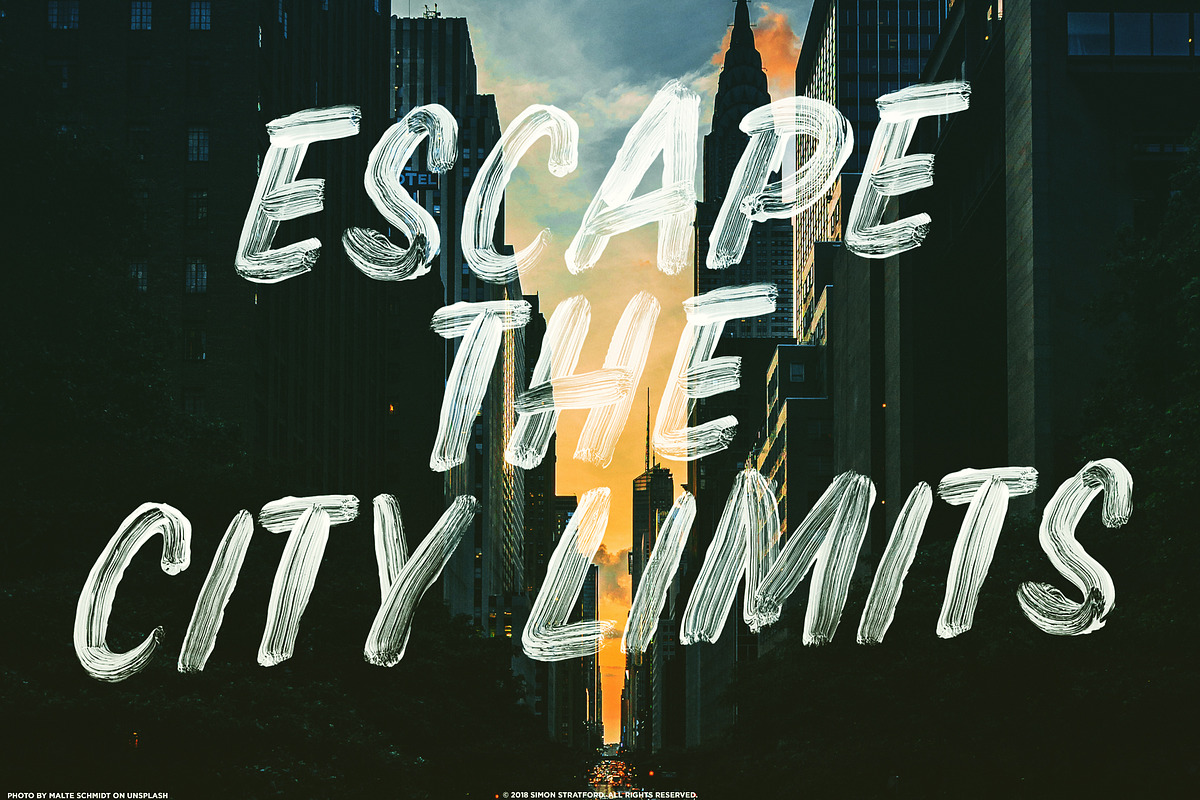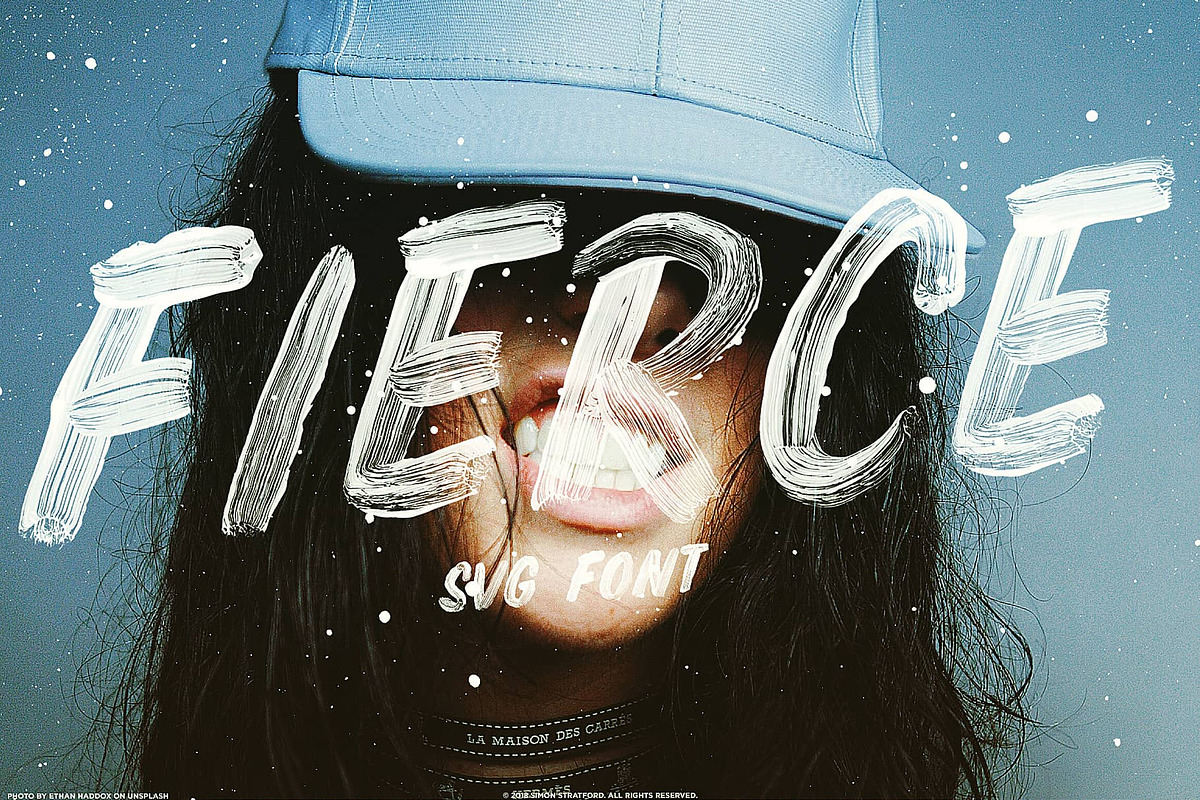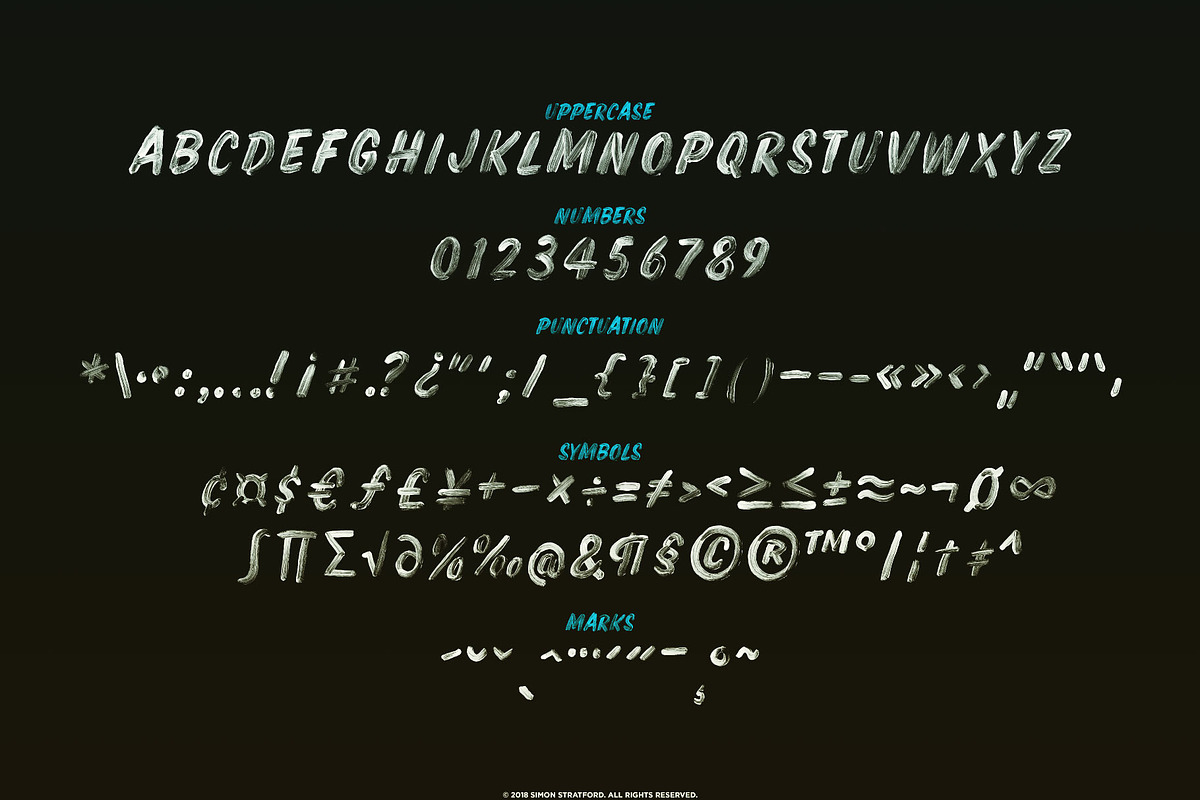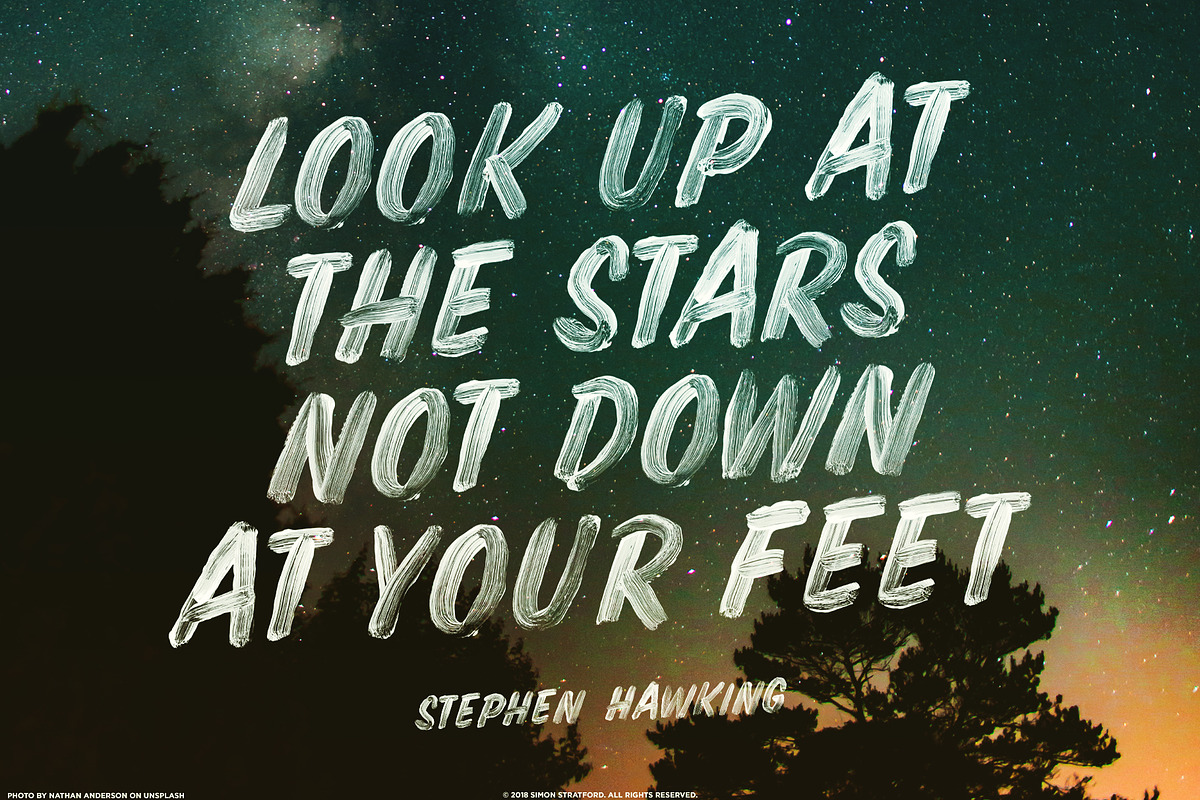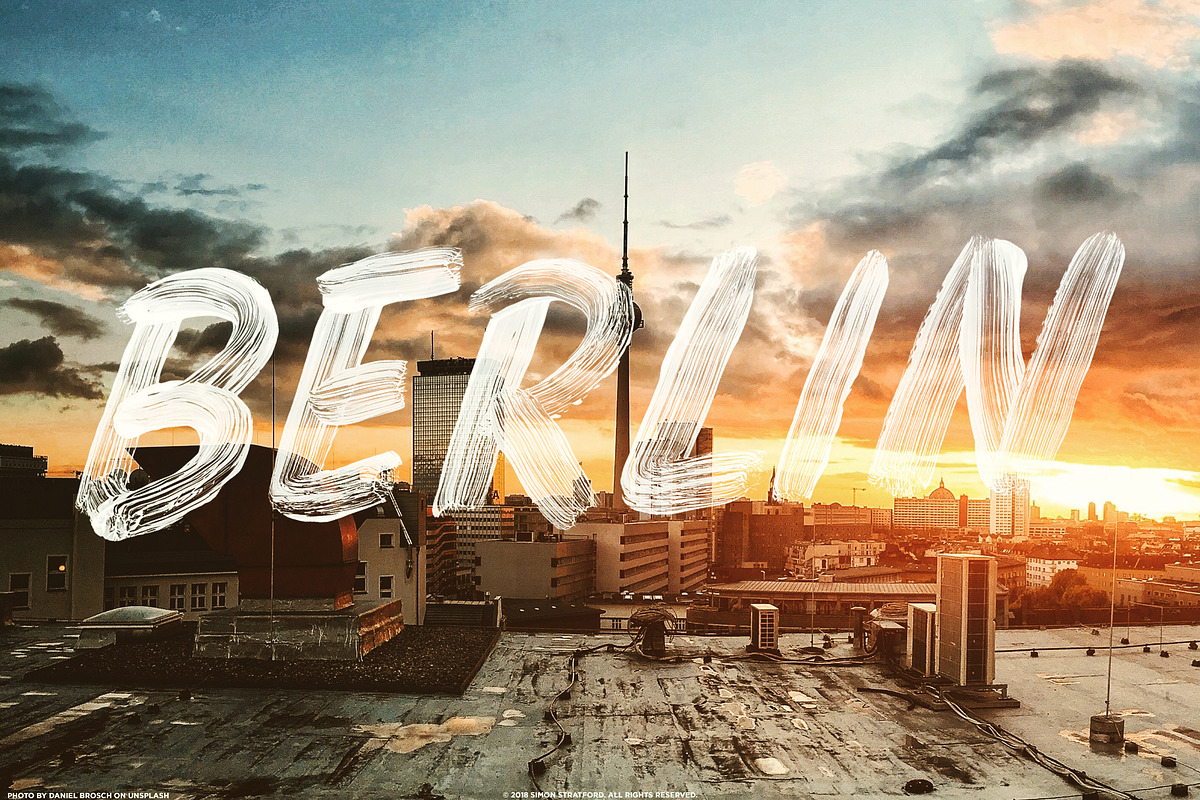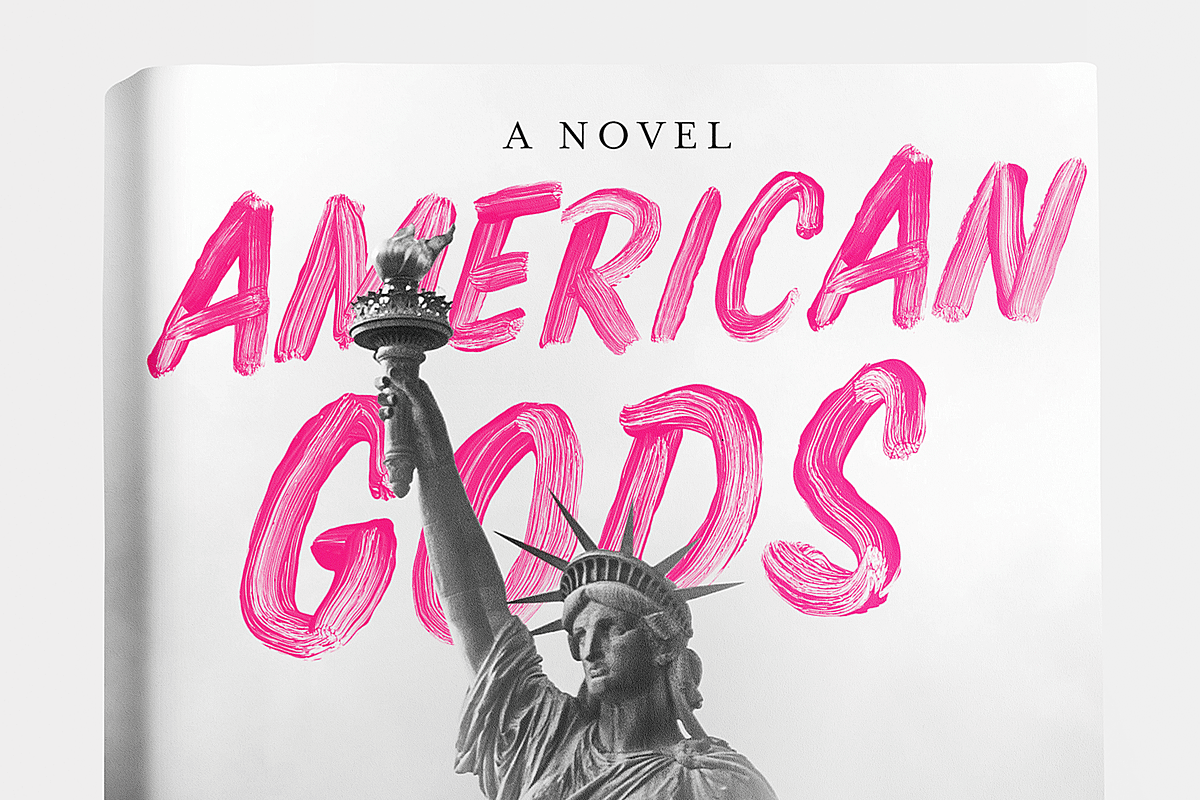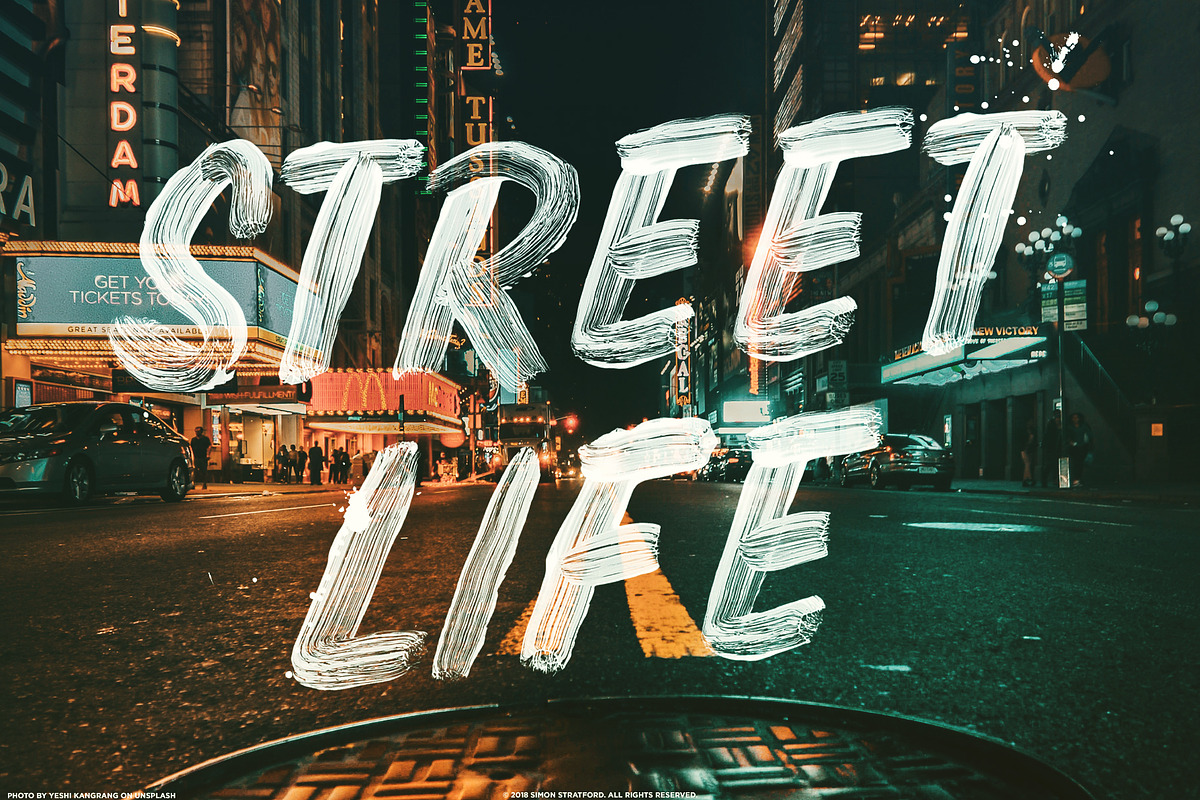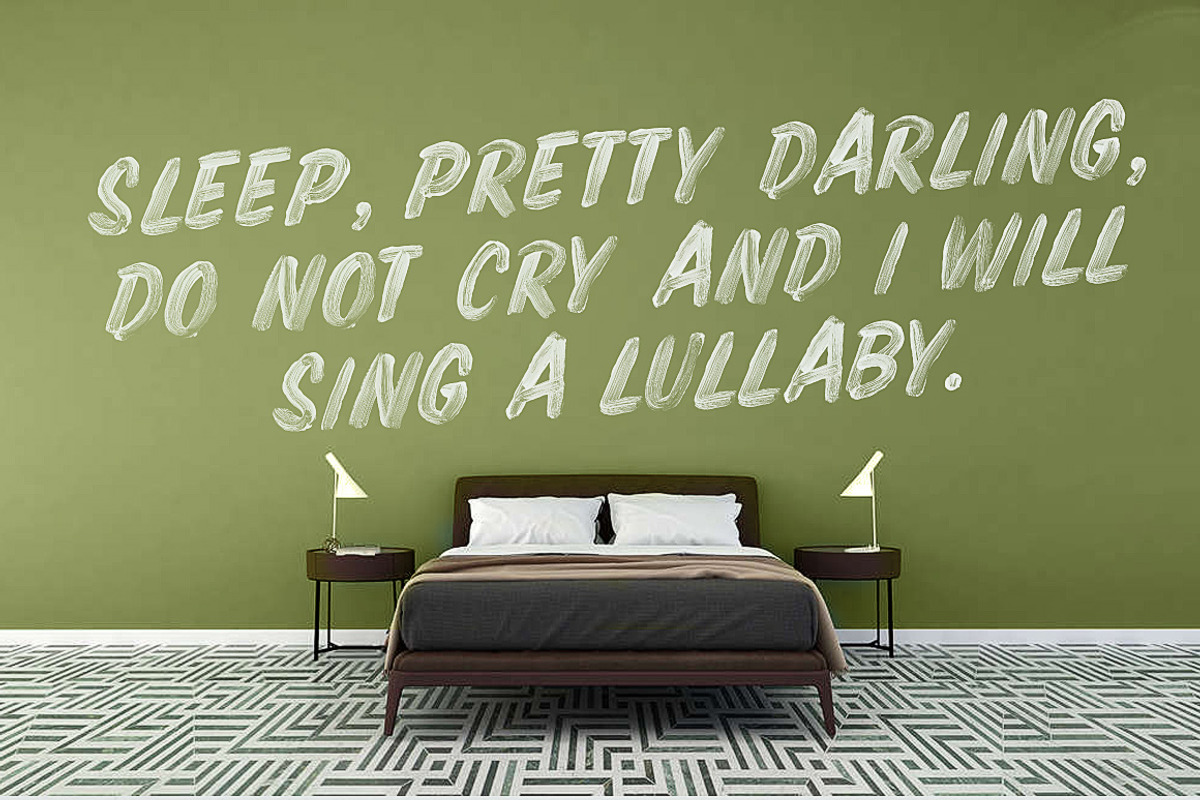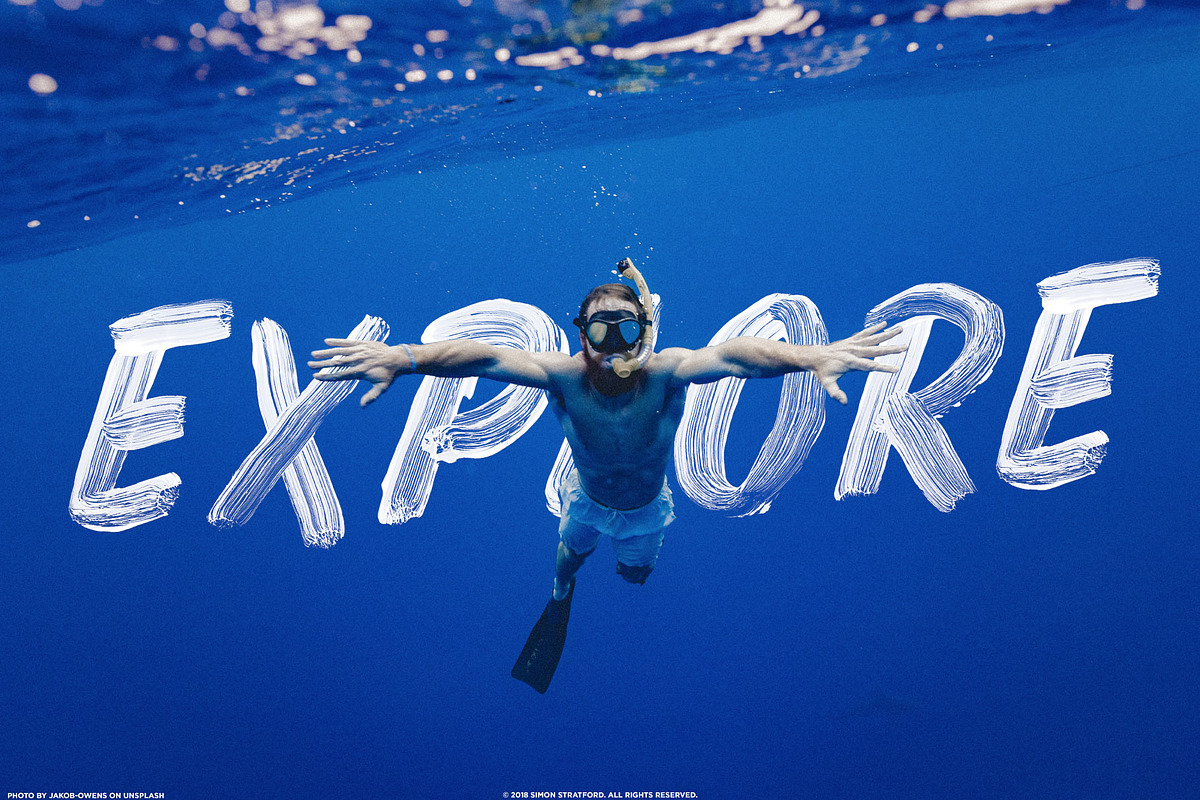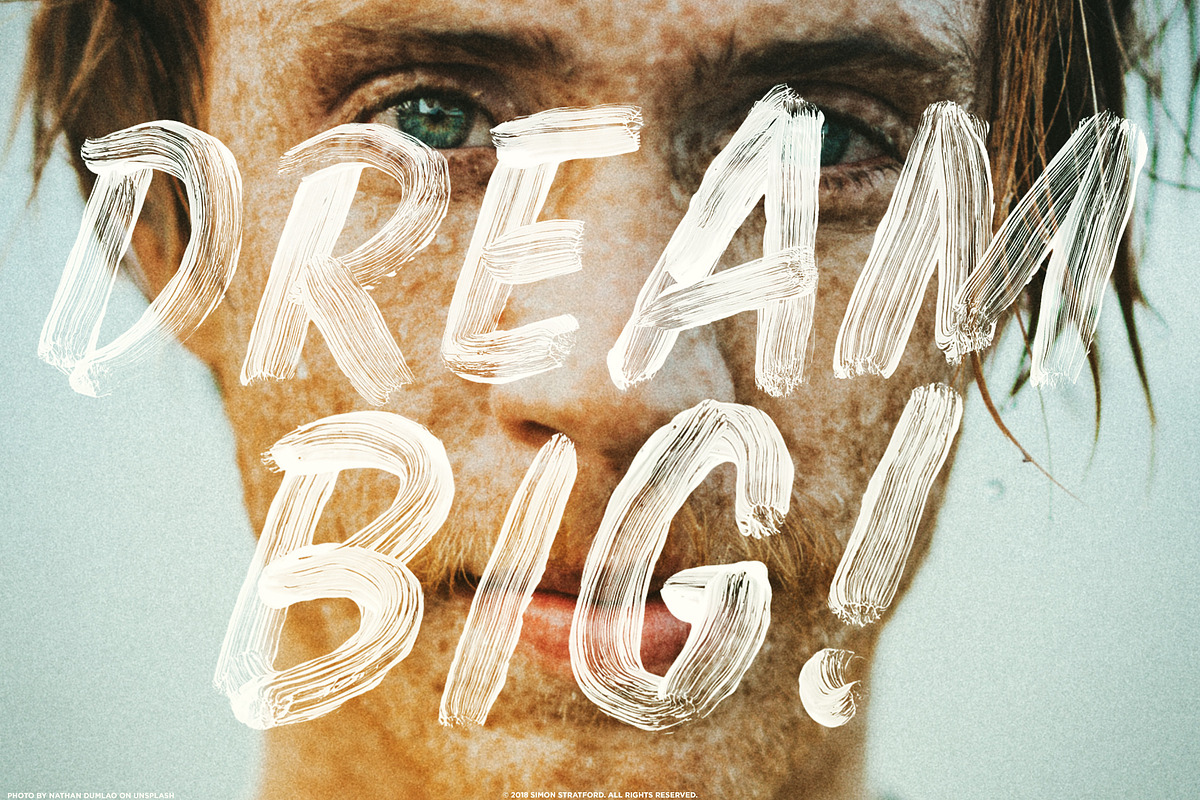
Display font Fierce
Fierce is bold brush script font (OpenType-SVG), created with acrylic paint on transparency film. This gives it a level of detail that you just can't get with a traditional vector typeface. The paint almost looks a dry brush because you can see each and every stroke.
** Brush Script font **
It's a big and brash brush script display font, with a slight punk attitude. Would be perfect for posters, packaging, advertising, headlines, branding, signage and anything where you want that urban look and feel.
If this font were a band it would be more The Ramones than Rebecca Black. It's quite shouty like a Friday night out on the town—Partyin', partyin' Fun, fun, fun, fun!
** Cutting Edge **
** Want Extra Grunge? **
A-Z uppercase letters (unicase font, it has no lowercase letters)
Symbols
Marks
A-Z uppercase letters
Symbols
Marks